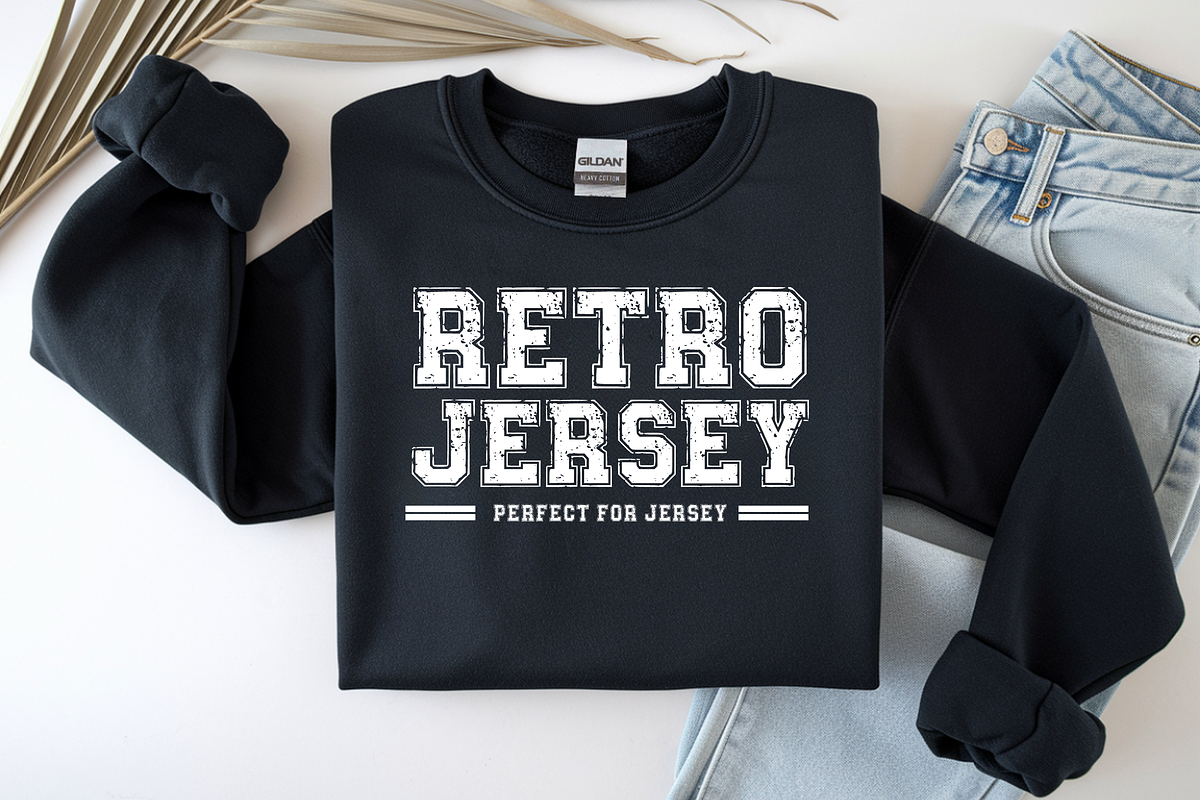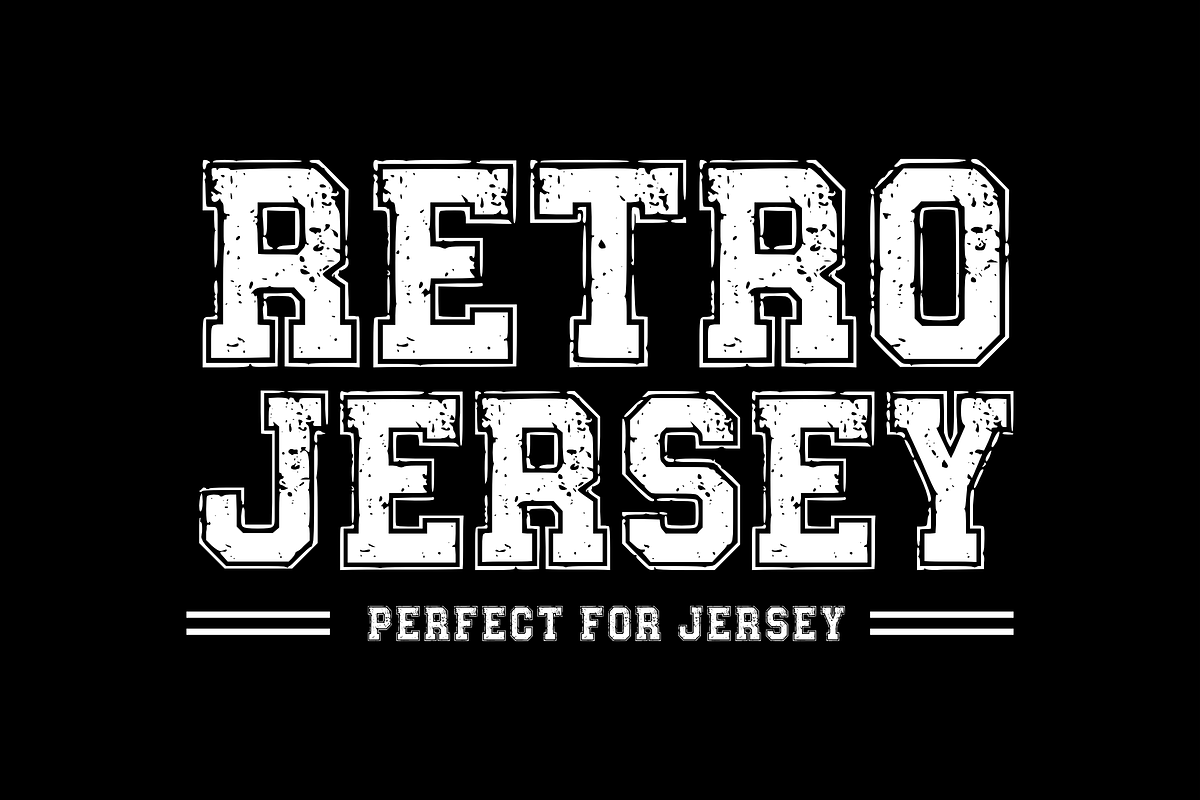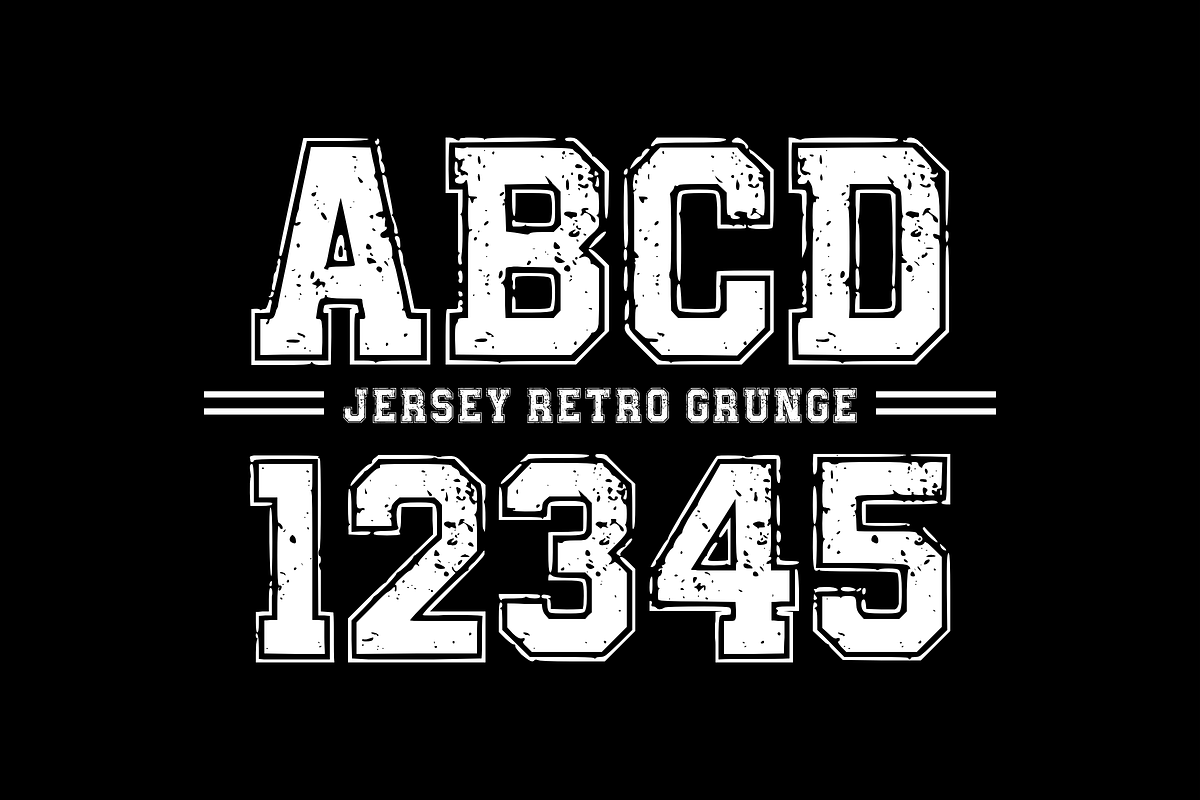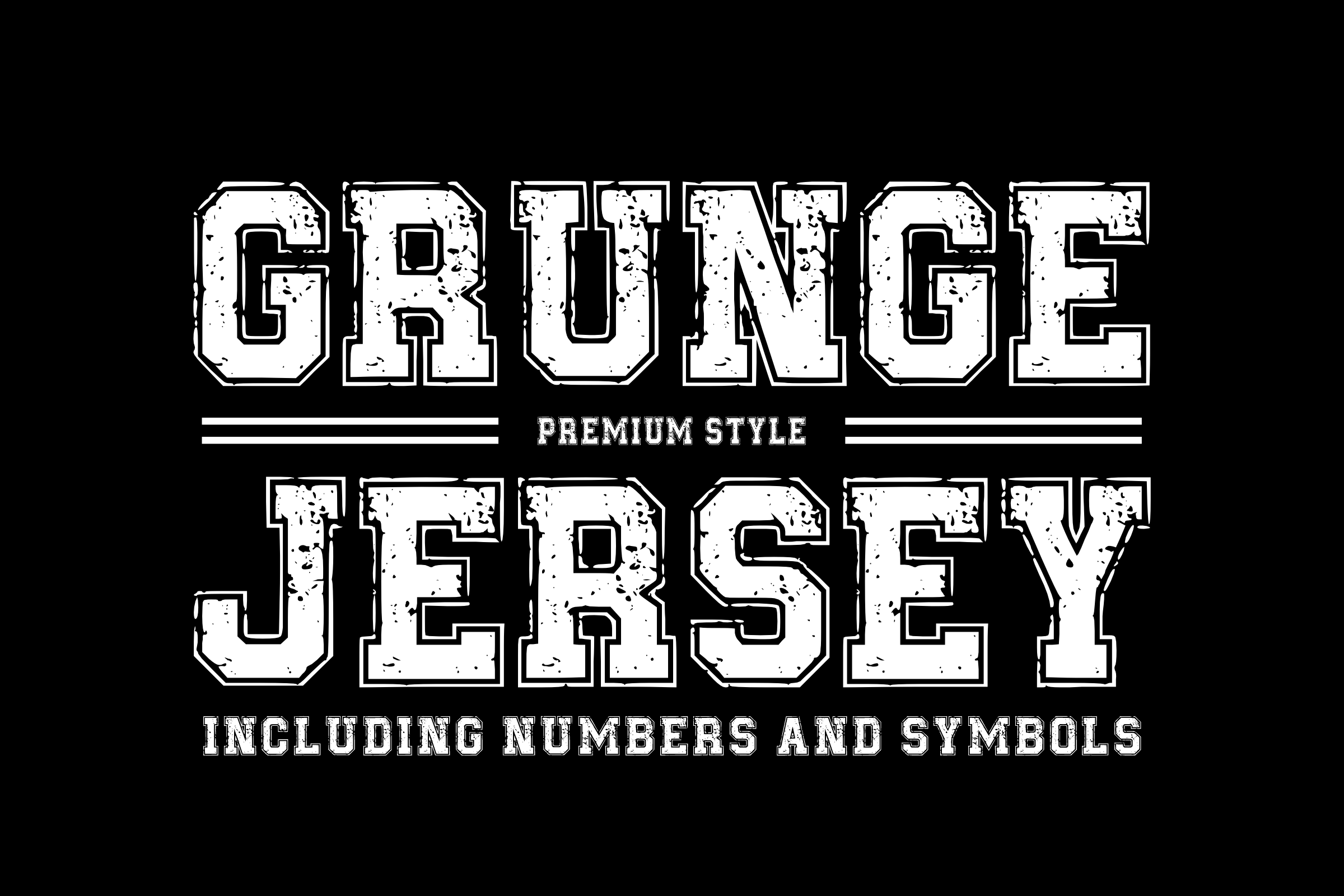
Grunge Jersey - Sports Font
Bring a rugged, vintage athletic energy to your designs with Grunge Jersey! This bold, collegiate block font features a classic varsity layout mixed with a heavily distressed grunge texture. It’s the ultimate choice for creating high-impact team logos, sports merchandise, and streetwear designs that look instantly timeless and authentic.
Perfect for clothing brands, sporting events, and trend-focused vintage crafting, Grunge Jersey effortlessly pairs a weathered texture with clean, high-impact legibility. It is highly versatile, cuts beautifully on digital cutting tools like Cricut, and is fully optimized for smooth rendering across all professional design software and print setups.
All-Caps Character Set (Bold, distressed athletic block letters with a classic inner outline detail)
Numbers & Simple Punctuation (Essential, clean sports-style symbols included)
Team Jerseys, Sports Apparel, Streetwear Hoodies, & Varsity Jackets 👕
Athletic Club Logos, Fitness Branding, & Championship Posters 🏆
Cricut, Silhouette, & DIY Distressed Craft Sublimation Projects ✂️
Vintage Tailgate Party Invites, College Event Banners, & Flyers 🏈
Custom Die-Cut Stickers, Caps, Gym Merch, & Product Packaging 🧢
High-Impact YouTube Thumbnails, Sports Vlogs, & Bold Social Media Layouts ✨